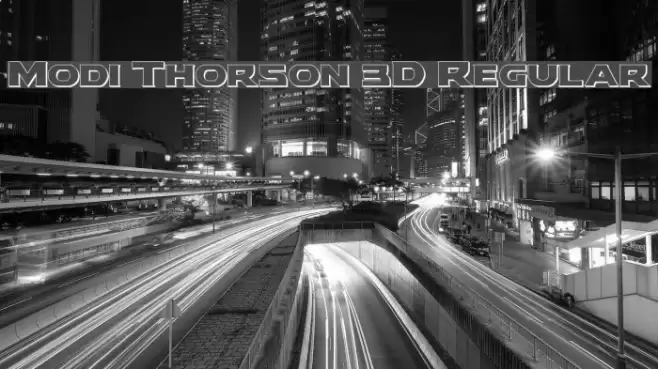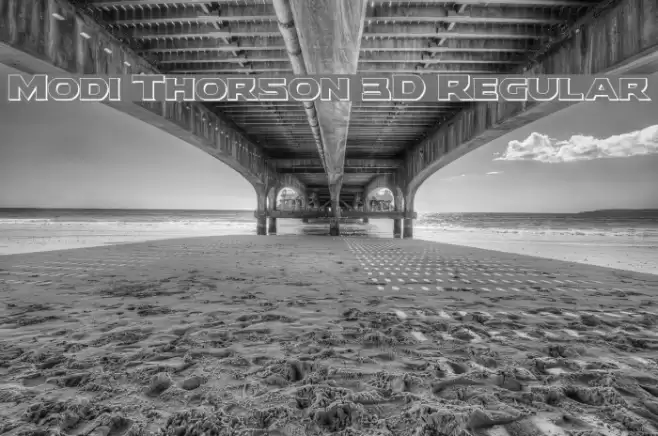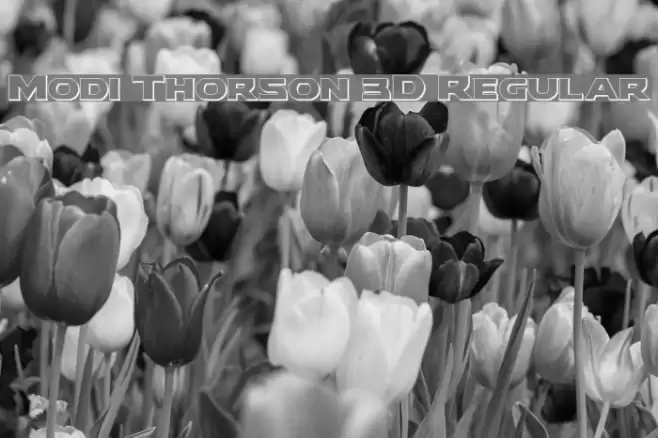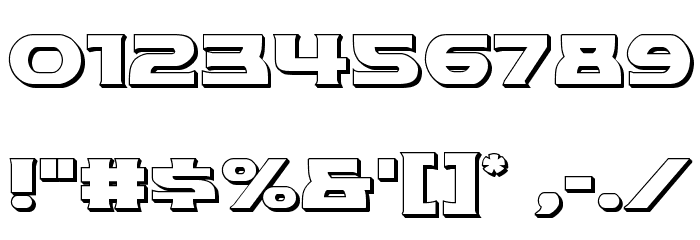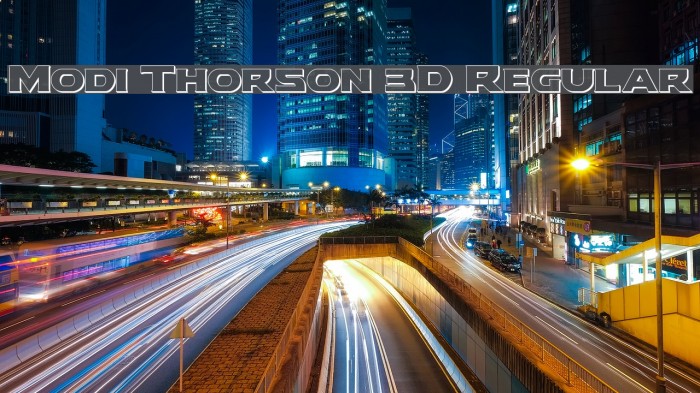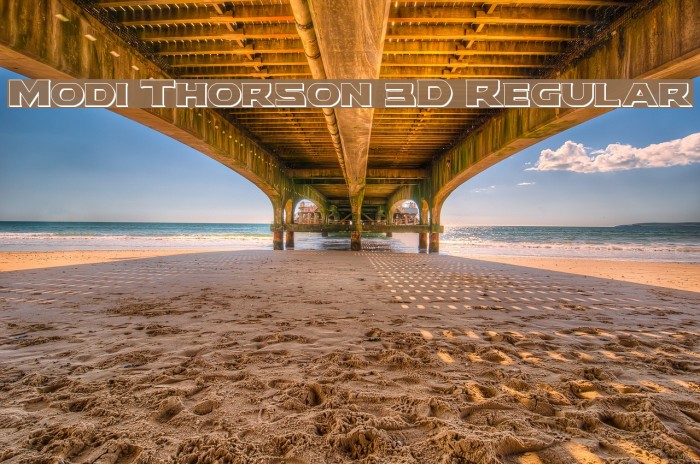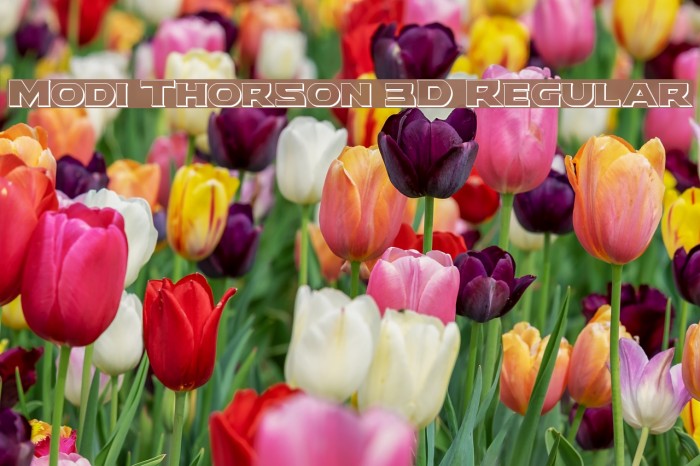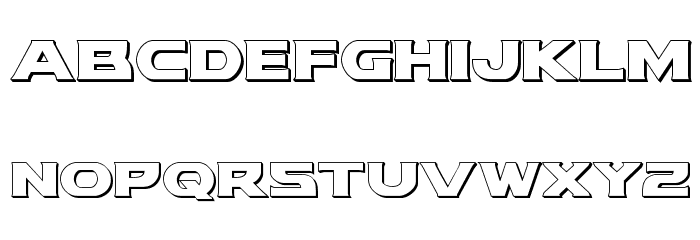
Modi Thorson 3D Regular Font
Modi Thorson 3D Regular Description
This font features a bold, three-dimensional design with a futuristic and geometric aesthetic. The characters are outlined, creating a hollow effect that adds depth and dimension. The uppercase letters are uniform in height, while the numbers and special characters maintain a consistent style. The font's structure is angular and sharp, with clean lines and a modern appeal. It is well-suited for projects that require a strong visual impact, such as posters, headlines, or branding materials. The spacing between characters is balanced, ensuring readability while maintaining its distinctive style.
A bold, 3D geometric font with a futuristic and angular design from Uncategorized fonts.